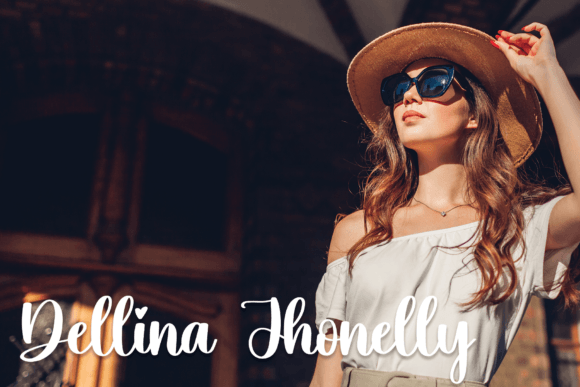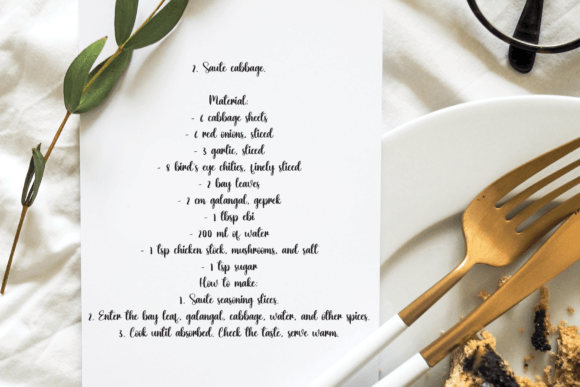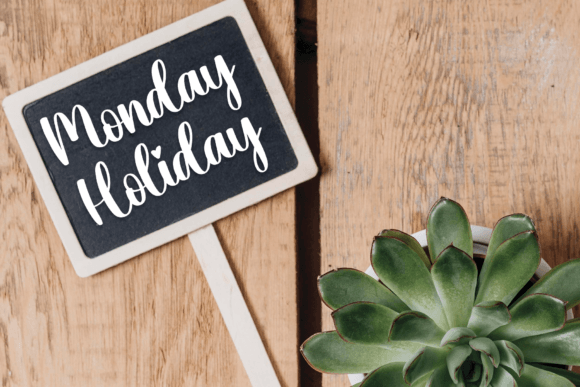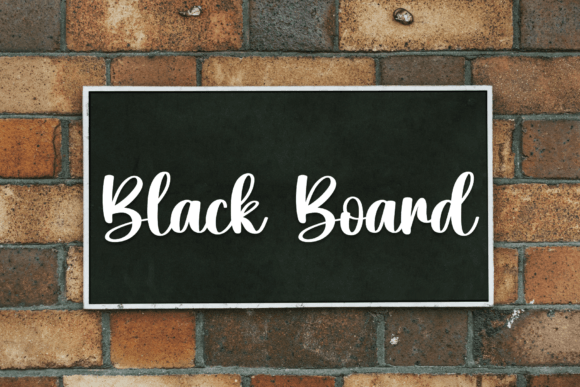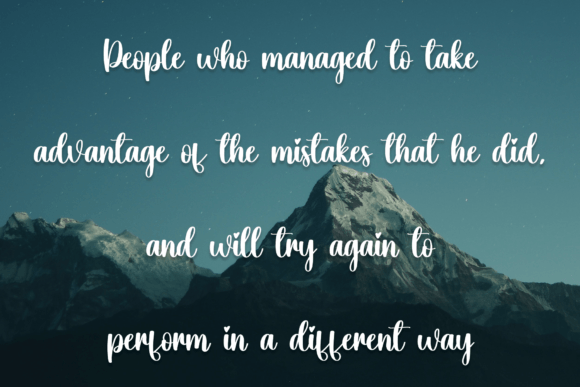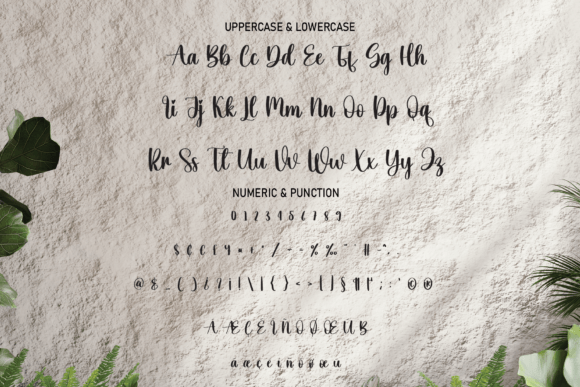
Introduction to Onegreen Font
Have you ever stared at a blank page, waiting for that spark of creativity to strike? For designers, that moment is a thrill unlike any other – the thrill of bringing a project to life. And what better way to capture that magic than with the perfect font?
That’s where the Onegreen Font comes in – an exquisite handwritten font that effortlessly blends classy calligraphic influences with a modern, contemporary feel. Its high-quality design makes it a valuable resource for any designer looking to elevate their creative project. Whether you’re working on a branding campaign or crafting a beautiful invitation, the Onegreen Font is sure to bring your vision to life.
Key Features of Onegreen Font
- High-quality, professional font suitable for creative projects with a transparent background, allowing for seamless integration with various design elements.
- Available in a single size, 400, to provide a consistent and polished look across all applications.
- Designed to meet the needs of modern designers, with a high resolution of 300 DPI, ideal for printing and digital use.
- Unique and elegant design, perfect for adding a touch of sophistication to creative projects, from branding and advertising to editorial and publishing.
Honest Review: Onegreen Font
As a designer, I’m always on the lookout for high-quality design resources to elevate my creative projects. The Onegreen Font caught my eye due to its unique and modern aesthetic.
- ✨ Elegant and sleek design that adds a touch of sophistication to any project
- ✨ Highly legible and easy to read, making it perfect for body text
- ✨ Transparent background, allowing for seamless integration into creative projects
- ⚠️ Limited font weight options, which can be restrictive for some designers
- ⚠️ Not ideal for use in bold or heavy typography
Overall, I’m impressed with the Onegreen Font. Its high-quality design and free download make it a valuable resource for designers. While it may not be perfect, it’s a great addition to any design library. With a little creativity, you can work around its limitations and achieve stunning results.
Tips for Getting the Most Out of Onegreen Font
Use the Onegreen Font with a transparent background to create a modern and sleek design. Experiment with different font sizes and styles to add depth and visual interest to your project.
Common Use Cases for Onegreen Font
The Onegreen Font is perfect for creative projects such as branding, marketing materials, and digital art. It’s also great for presentations, reports, and other documents that require a high-quality and professional font.